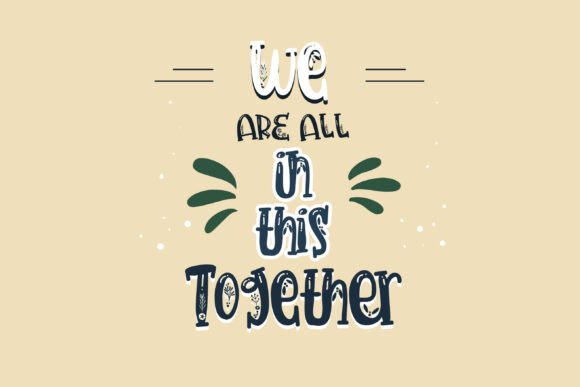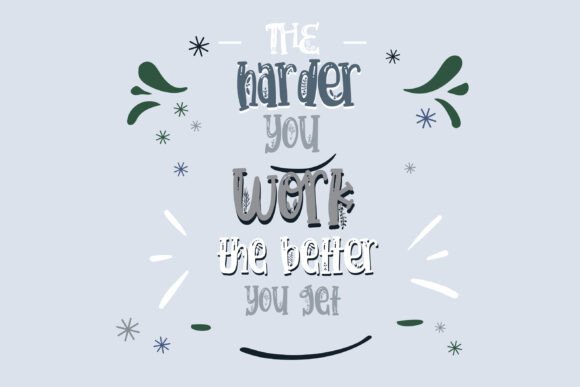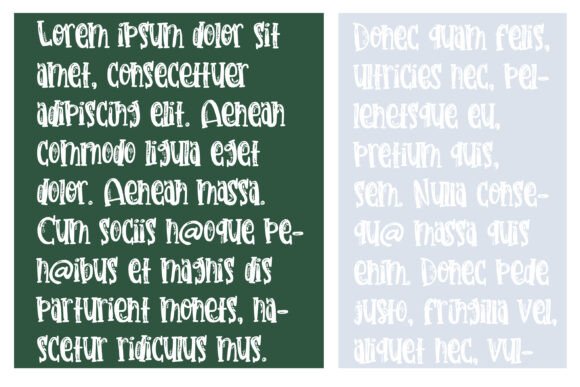
Introduction to Good Tidings and Joy Font
This hand-crafted font is a whimsical serif with holiday florals throughout.
A hand-crafted font is a font that is designed to look like it was written by hand It is often used for invitations, greeting cards, and other items.
Key Features of Good Tidings and Joy Font
Why Choose Good Tidings and Joy Font?
Good Tidings and Joy Font offers exceptional quality and versatility, making it a valuable addition to your design toolkit. Whether you’re creating for personal projects or commercial use, Good Tidings and Joy Font delivers professional results.